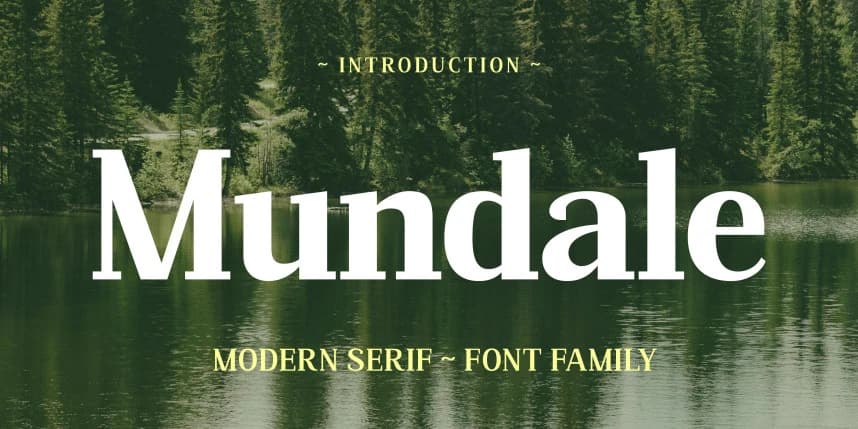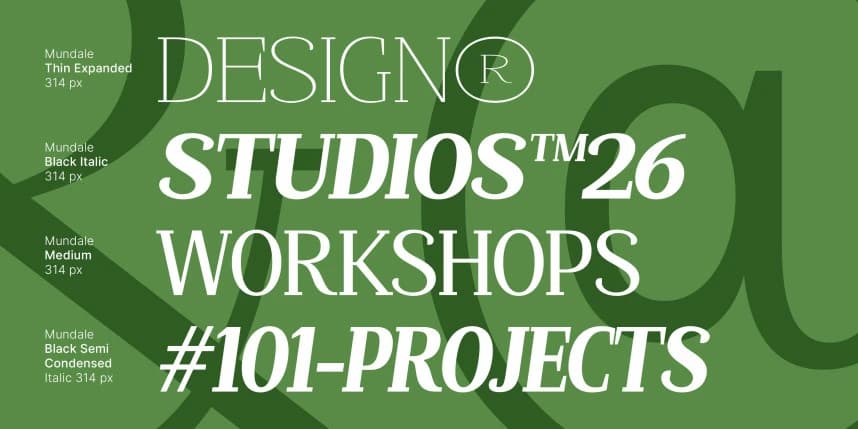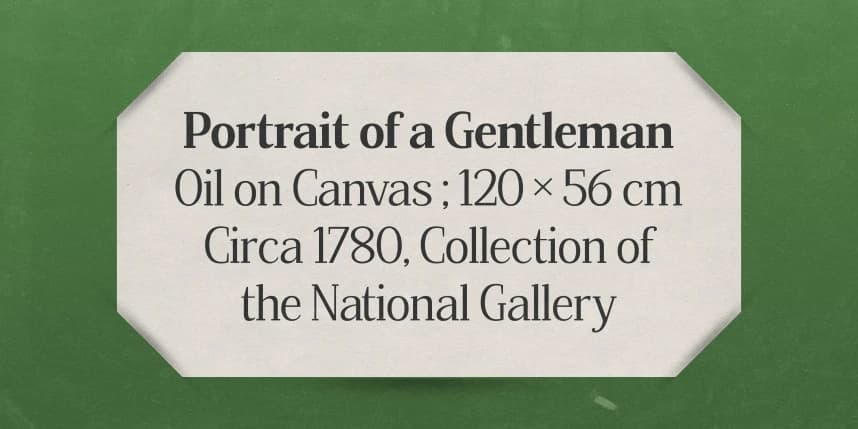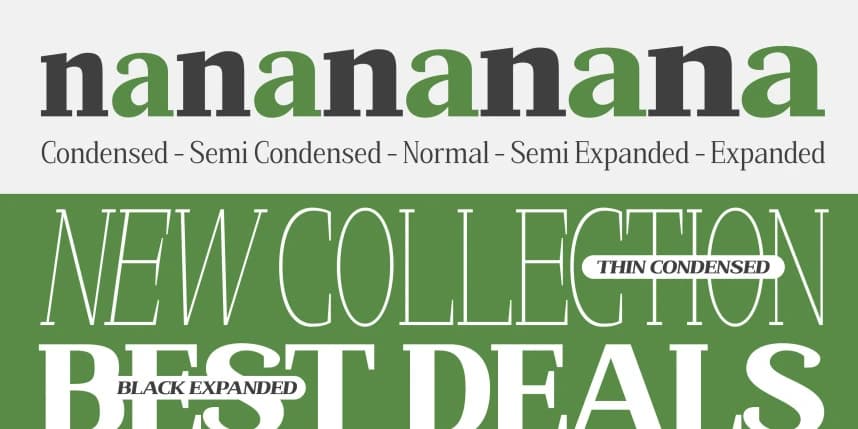
Mundale Font Family
Mundale Font Family is a refined modern serif font family that blends timeless elegance with contemporary clarity. Designed with balanced proportions and clean, confident letterforms, Mundale delivers a sophisticated visual presence that feels both classic and fresh.